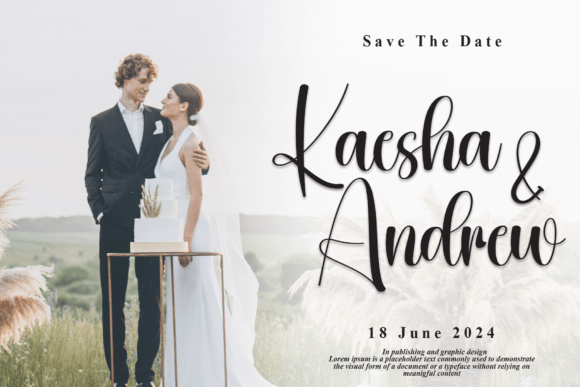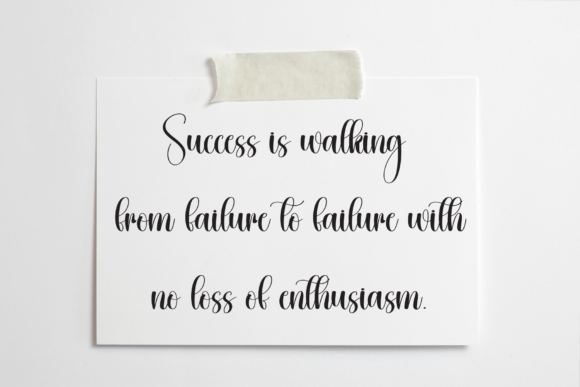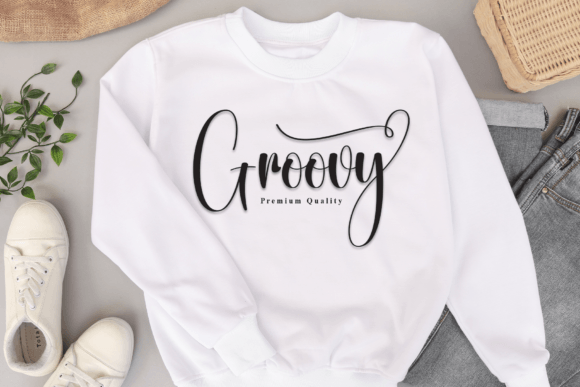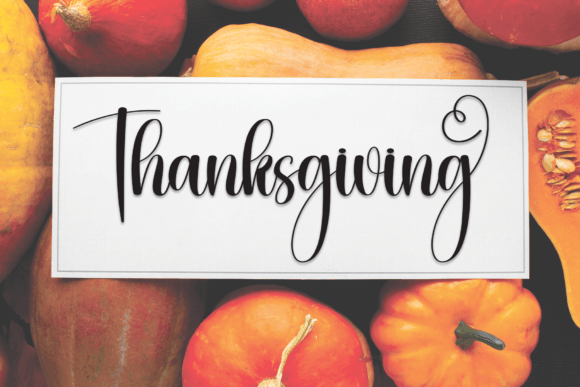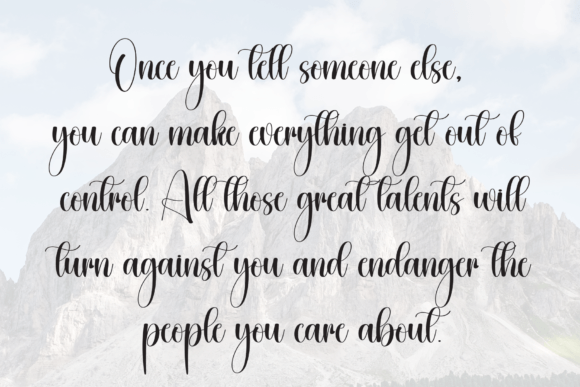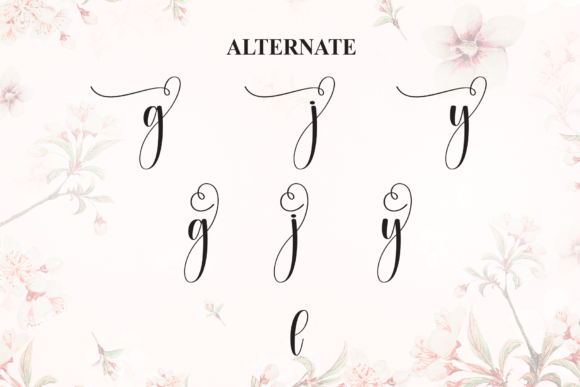
The Sweet Spot: Discovering Hey Beauty Font
I’ll never forget the time I was working on a project for a client’s wedding invitation suite. I had a clear vision of the design, but something was missing – the perfect font. I scoured the internet, tried out countless fonts, but none seemed to capture the sweet and playful vibe I was going for. That’s when I stumbled upon Hey Beauty Font, and it was love at first sight! 💕
Hey Beauty is a sweet and friendly handwritten font that has become a staple in my design toolkit. Its natural and unique style makes it incredibly fitting to a large pool of designs. The only limit is your imagination! In this article, I’ll share my honest review of Hey Beauty Font, a practical guide on how to use it, and some helpful tips and tricks.
- ✅ Unique and natural handwritten style that adds a personal touch to any design
- ✅ Highly versatile and can be used for a wide range of projects, from wedding invitations to social media graphics
- ✅ Easy to read and understand, even at small font sizes
- ✅ Beautifully crafted with attention to detail and a clear understanding of typography
- ⚠️ Some letters may appear a bit narrow or wide, which can affect the overall flow of the text
- ⚠️ Limited availability of language support, which may not be suitable for designs that require non-English text
Designer Inspiration: The Story Behind Hey Beauty Font
Hey Beauty Font was created by a talented designer who wanted to craft a font that would bring a touch of warmth and personality to any design. With a passion for typography and a keen eye for detail, the designer spent countless hours perfecting the font, ensuring that it would be both beautiful and functional.
Q: What type of designs is Hey Beauty Font best suited for?
A: Hey Beauty Font is incredibly versatile and can be used for a wide range of designs, from wedding invitations and social media graphics to blog headers and branding.
Q: Is Hey Beauty Font available in different languages?
A: Unfortunately, Hey Beauty Font has limited language support. If you need to use the font for non-English text, please check the font’s specifications to ensure that it supports the language you need.